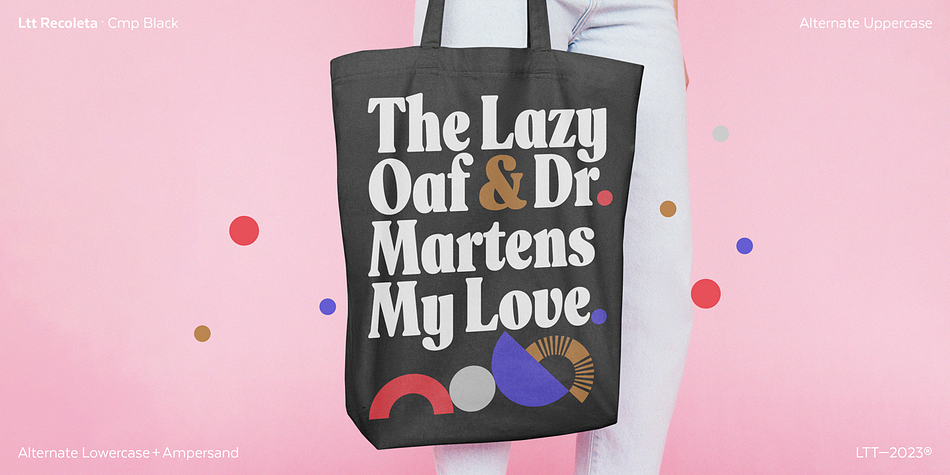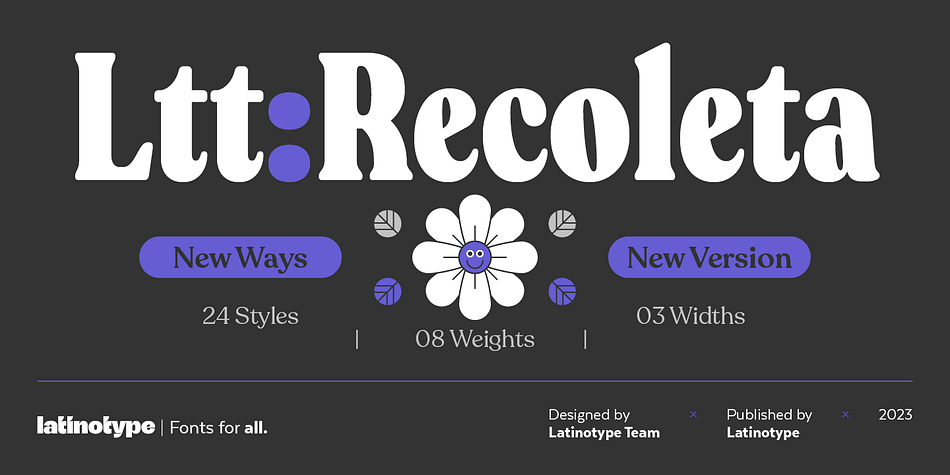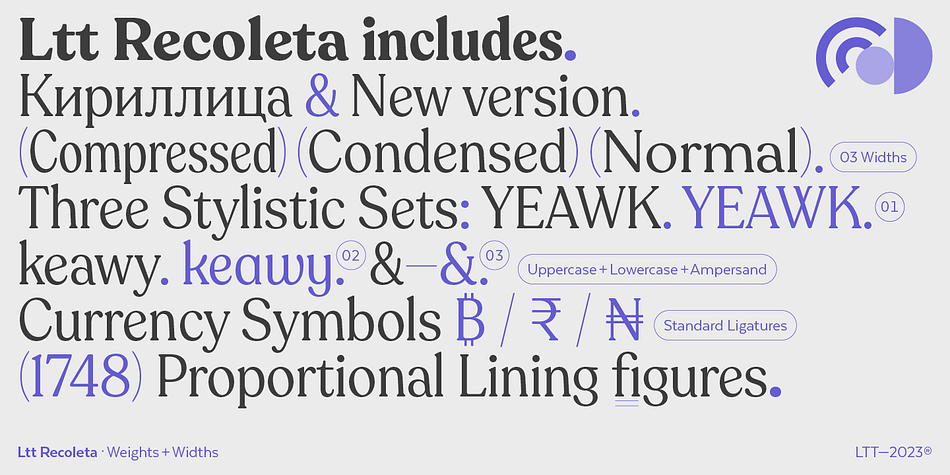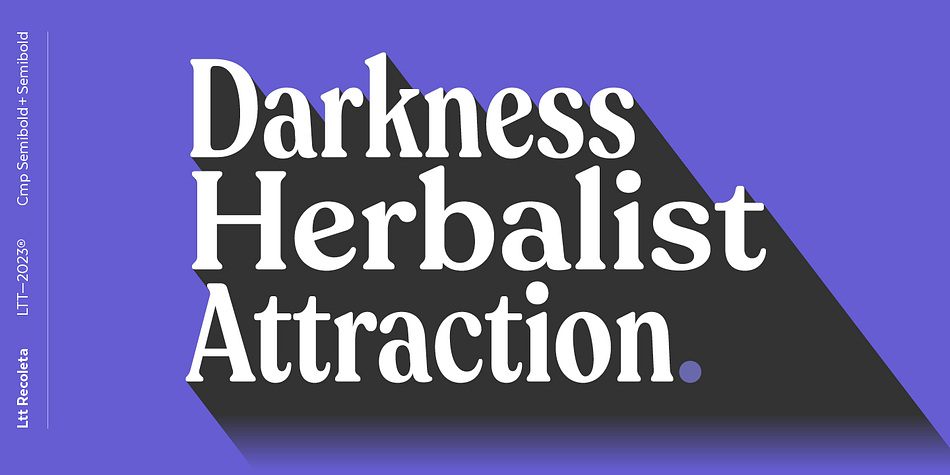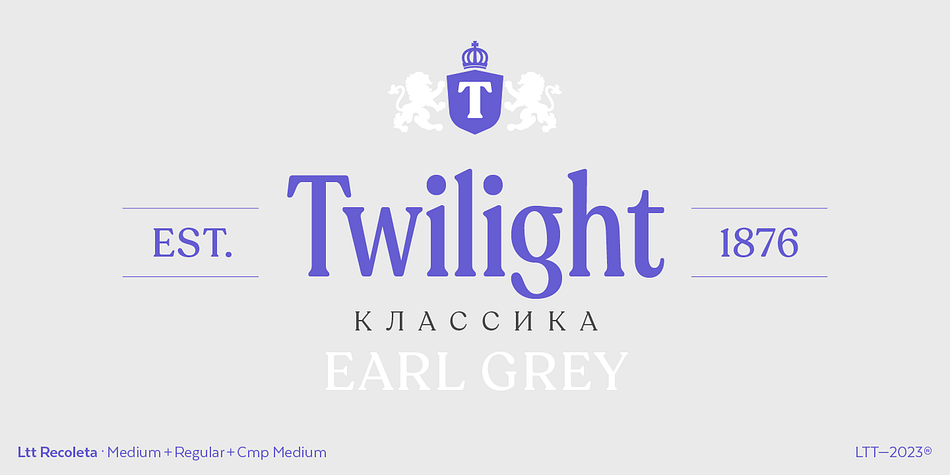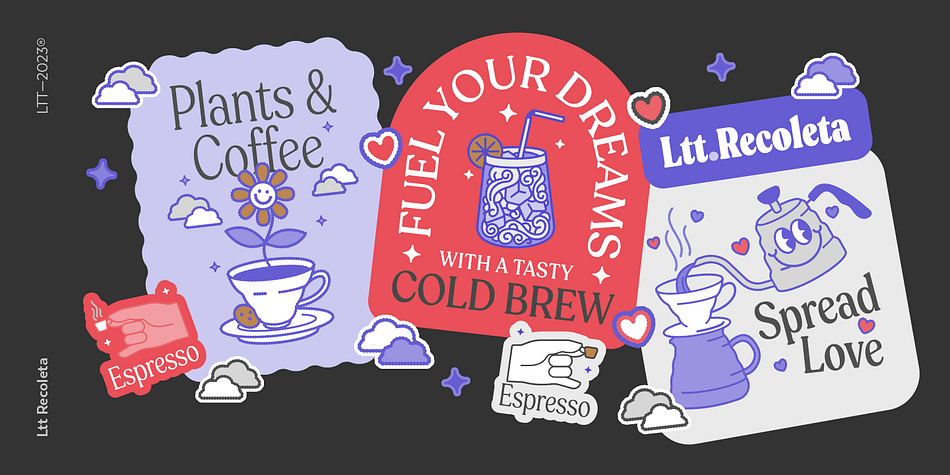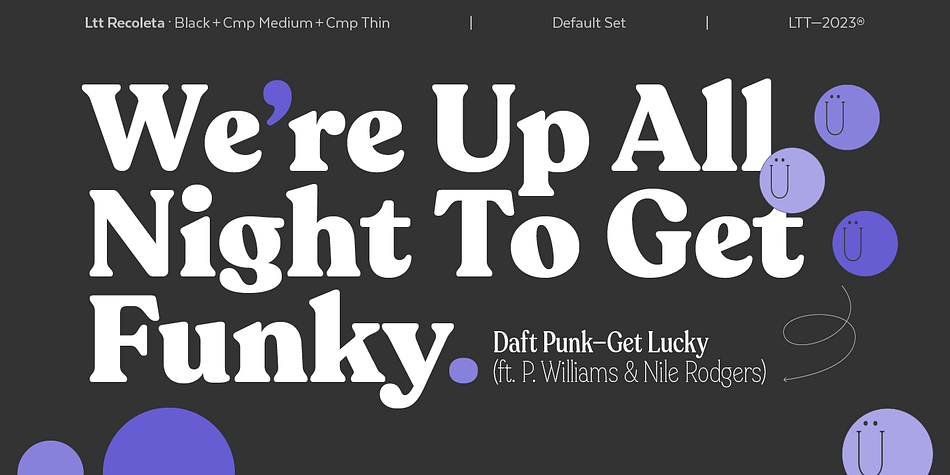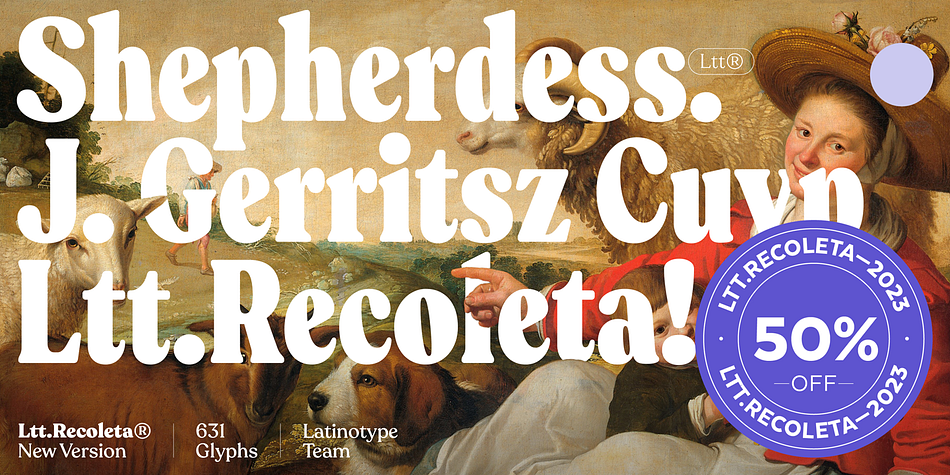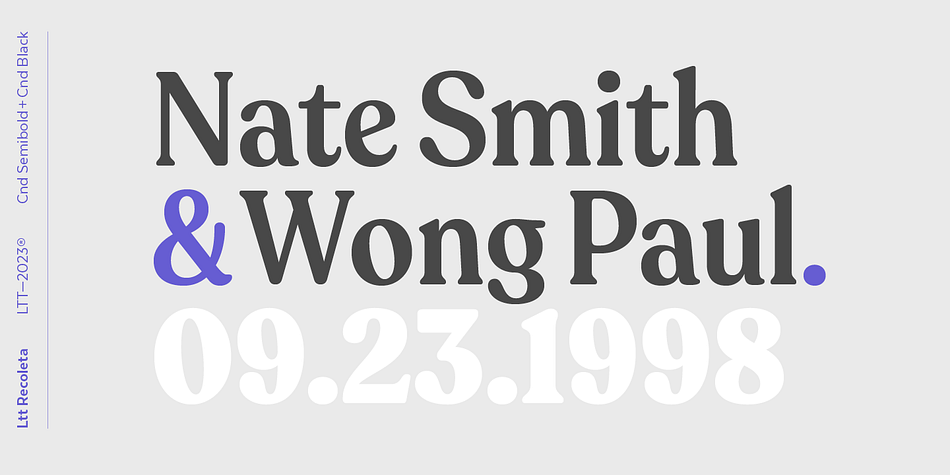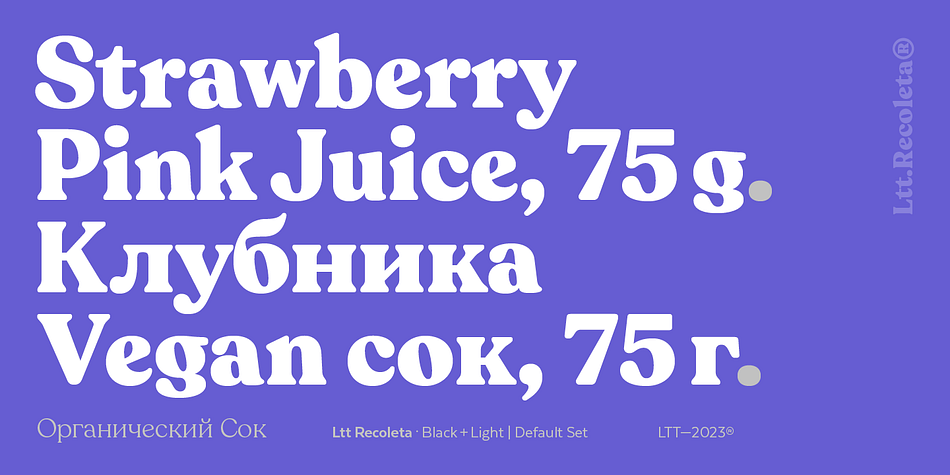
Ltt Recoleta
Designed by Latinotype Team and Jorge Cisterna, Ltt Recoleta is a retro and serif font family. This typeface has twenty-four styles and was published by Latinotype.
This new Recoleta is made up of 24 styles in total. We have added to its classical width two new variants with two different degrees of condensation: one very condensed and svelte, and the other at the midpoint between the standard width and the condensed. Each of the 3 widths has 8 weights, from thin to black. It also has numerous stylistic alternatives in both uppercase and lowercase. On the other hand, Recoleta also supports the Cyrillic alphabet.